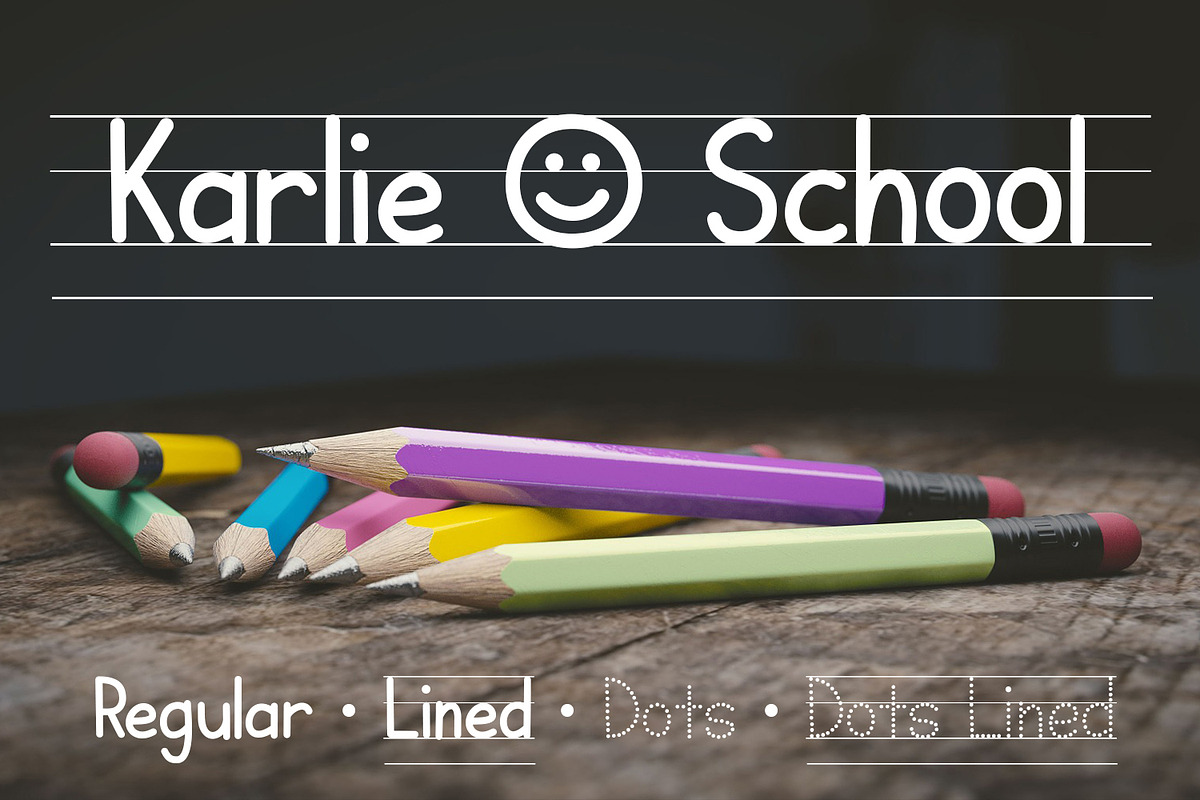
Karlie School
Karlie School is made for teaching children how to write. You can use the basic handwriting font, the dotted tracing font, or use the versions with built-in guidelines to make creating worksheets easier!
- Karlie School Regular – a regular handwriting font OTF/TTF
- Karlie School Lined – a regular handwriting font with guidelines built-in OTF/TTF
- Karlie School Dots – a dotted handwriting font for tracing OTF/TTF
- Karlie School Dots Lined – a dotted handwriting font for tracing, which also has built-in guidelines OTF/TTF
Not only can you create educational worksheets with this set of fonts, the regular font is also perfectly usable for apparel designs, poster designs and much more. The lined regular version also looks great used in designs made for children, such as chore charts.